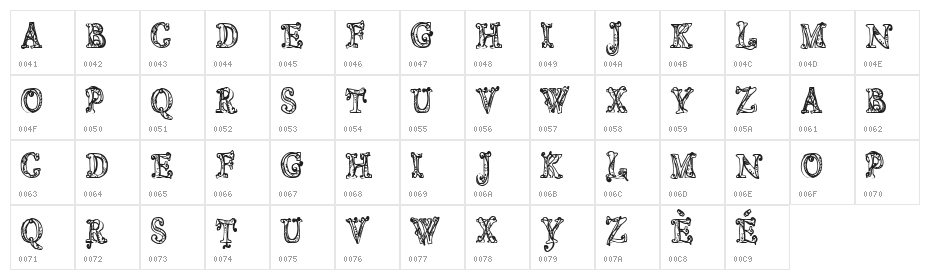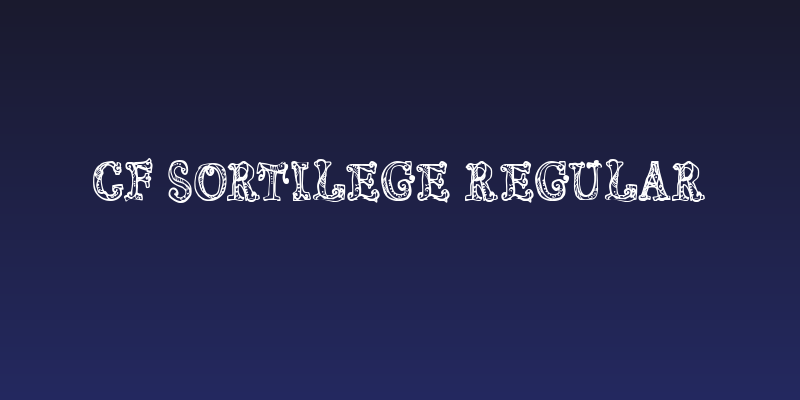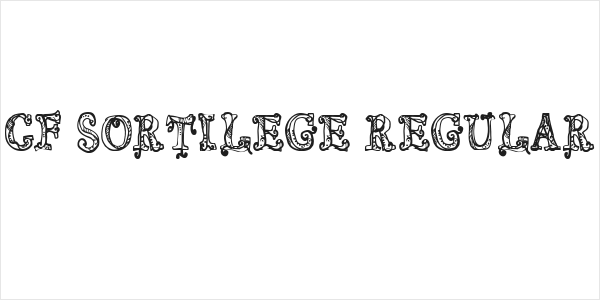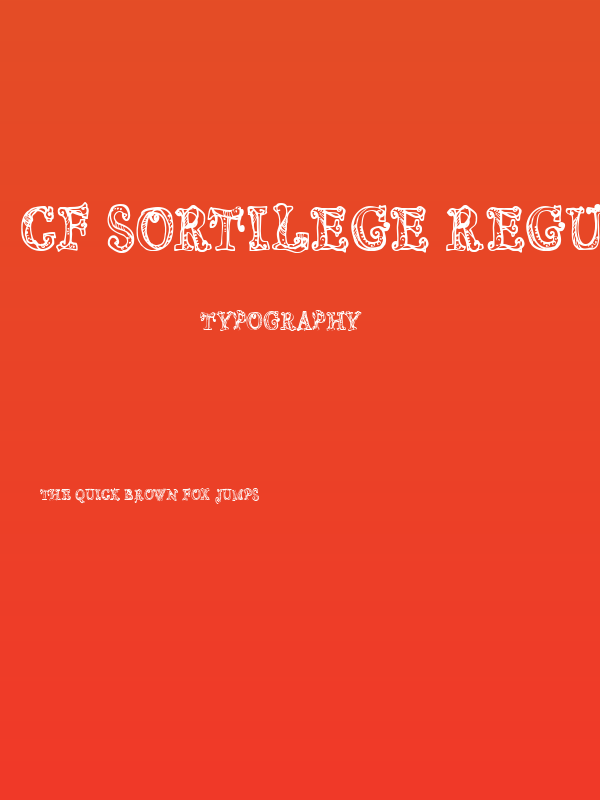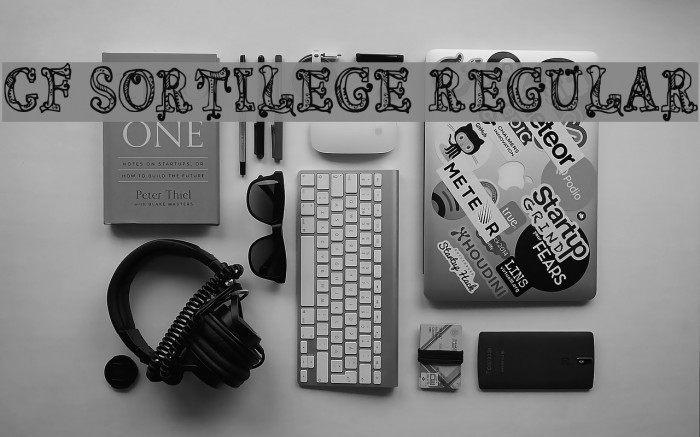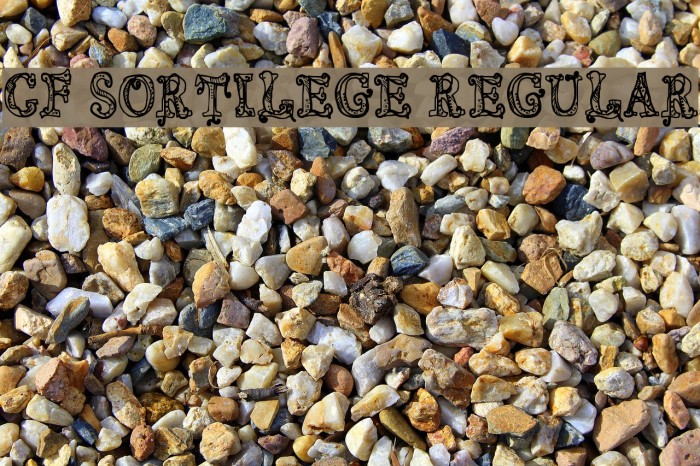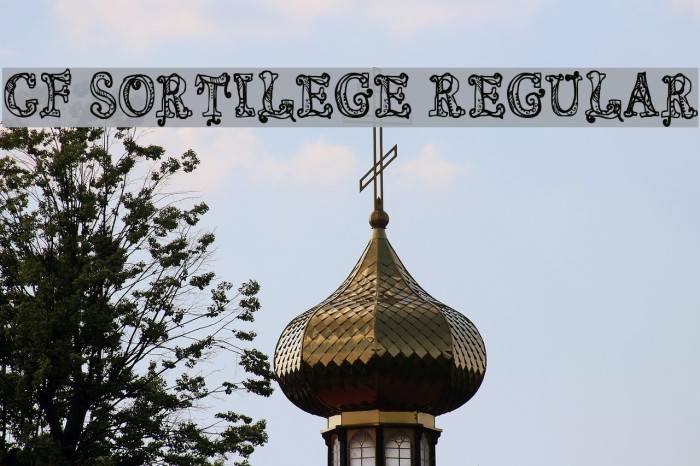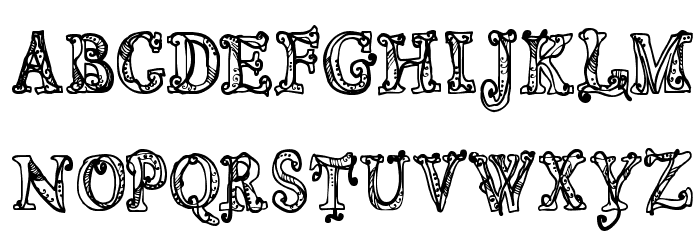
CF Sortilege Regular Font
CF Sortilege Regular Description
This font features an ornate and decorative style with intricate detailing within each character. The uppercase letters are bold and embellished with swirling patterns and flourishes, giving them a whimsical and artistic appearance. The lowercase letters maintain the same decorative elements, ensuring consistency throughout the typeface. The overall design is reminiscent of vintage or fantasy themes, making it suitable for projects that require a touch of elegance and creativity. The characters are well-defined, with a medium contrast in stroke thickness, adding to the visual interest without compromising readability.
| Overall Style | Decorative, Vintage |
| Proposed Projects | Ideal for fantasy-themed designs, invitations, posters, and branding that requires a touch of elegance and creativity. |